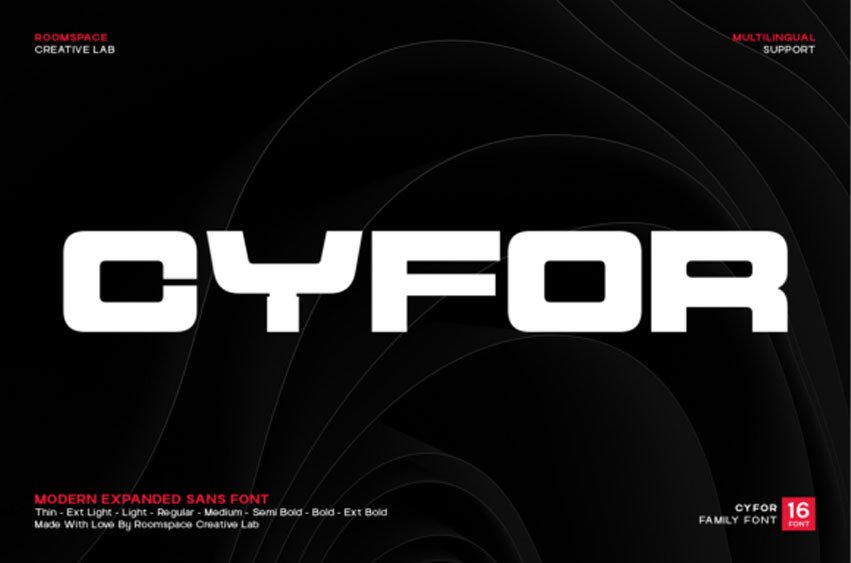
Cyfor Font is a bold, futuristic expanded sans-serif family perfect for tech branding and digital projects.
Cyfor Font Family is a modern, expanded sans-serif typeface designed for bold and futuristic visuals. Featuring 16 fonts, Cyfor offers a wide and powerful typographic presence ideal for branding, posters, packaging, gaming graphics, and digital design. Its clean geometric shapes and expanded proportions create a strong contemporary look suitable for both print and digital media.
With 16 weights, ranging from Thin to Extra Bold, this versatile typeface features wide, geometric proportions and clean, uncompromising lines, making it ideal for complex design systems. The CYFOR font is perfect for tech branding, gaming interfaces, sports graphics, corporate design, and commanding website headers. This multilingual CYFOR typeface provides exceptional clarity and powerful visual impact across all its styles, positioning your message at the cutting edge.
Use Cases: Logos, esports branding, tech packaging, website headers, poster design, sci-fi visuals, social media graphics, marketing templates, UI/UX elements.